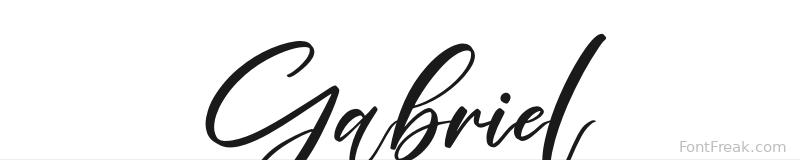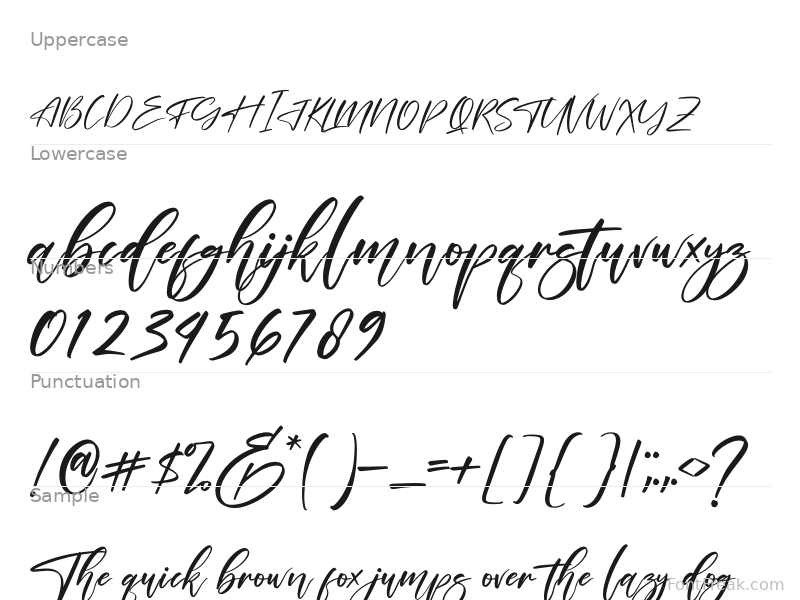
Gabriel
The Gabriel font by Perspectype Studio is a stunning script typeface that effortlessly blends elegance with modern flair. Released in 2021, this font is characterized by its fluid, handwritten style, making it an exceptional choice for projects that require a personal touch. The strokes exhibit a balanced contrast, with varying thicknesses that create visual interest without overwhelming the viewer. The graceful curves and sharp angles lend a dynamic quality, while the generous spacing ensures clarity and readability.
Gabriel excels in various applications, making it a versatile addition to any designer's toolkit. It is particularly well-suited for wedding invitations, where its romantic aesthetic can enhance the sentiment of the occasion. Additionally, it shines on restaurant menus, providing a sophisticated touch that can elevate the dining experience. Movie posters can benefit from its unique flair, capturing the attention of potential viewers with a stylish title presentation. Furthermore, Gabriel is perfect for branding projects, offering small business owners a way to establish a distinctive identity that resonates with their audience.
What truly sets the Gabriel font apart is its ability to convey emotion through typography. Its artistic design captures the essence of handwritten communication, creating a warm connection with the audience. For those seeking to enhance their design projects with a touch of sophistication, the Gabriel font free download is an opportunity not to be missed.